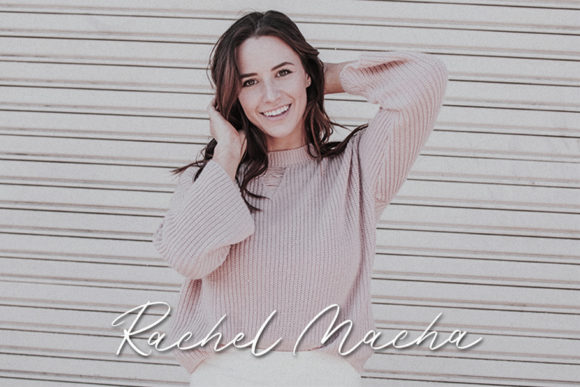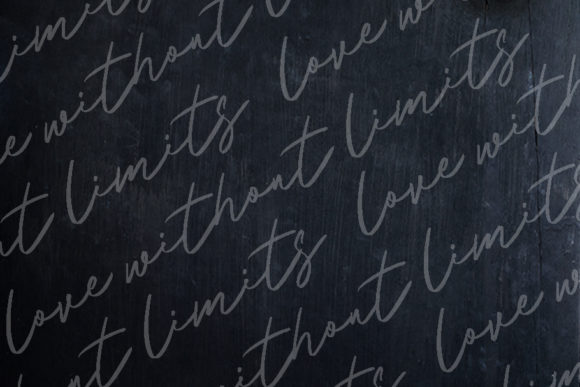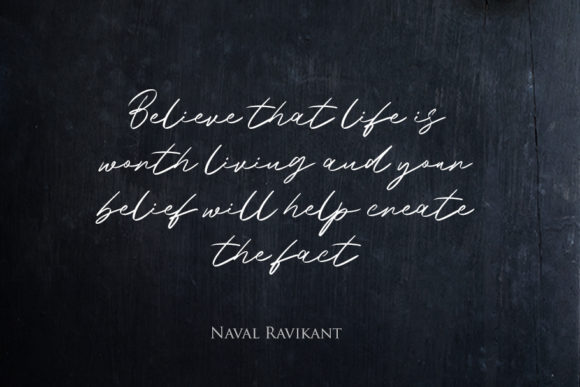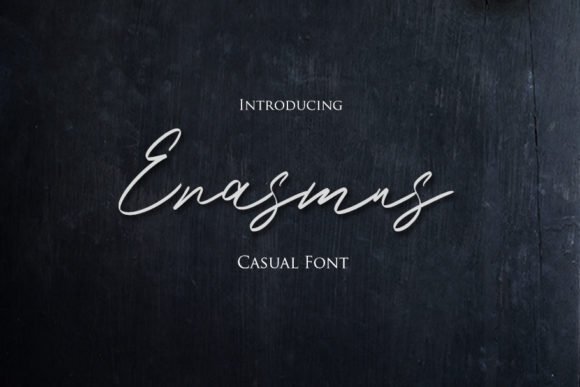
Introduction to Erasmus Font
Erasmus feels incredibly elegant and flowing.
It looks stunning on wedding invitations, thank you cards, quotes, greeting cards, logos, business cards and every other design which needs a handwritten touch It features a varying baseline, smooth lines, gorgeous glyphs and stunning alternates.